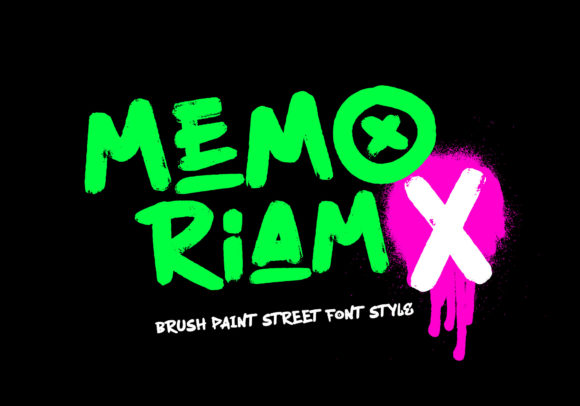
Journey into the world of urban expression with MemoriamX, the graffiti-inspired display font that captures the raw energy and rebellious spirit of street art. This remarkable font, crafted by the talented team at BB Type Studios, is a visual masterpiece that will transform your designs into striking works of art.
Immerse yourself in the vibrant culture of graffiti, where walls become canvases and words dance with rhythm and color. MemoriamX embodies this essence, allowing you to express yourself with an authentic and captivating voice. Its bold strokes and fluid lines evoke the energy of a bustling city, where creativity knows no bounds.
Unleash your imagination and let MemoriamX guide you through a world of possibilities. Create eye-catching t-shirts that speak to the urban soul, sportswear that exudes athleticism and style, and logos that command attention with their bold presence.
With MemoriamX, your designs will resonate with a generation that embraces individuality and pushes boundaries. Whether it's a clothing line that reflects the vibrant spirit of streetwear or an advertising campaign that demands attention, MemoriamX is the perfect companion for your creative journey.
MemoriamX is more than just a font; it's a gateway to a world where creativity thrives and self-expression knows no limits. Its PUA encoding ensures effortless access to a treasure trove of glyphs and swashes, empowering you to add intricate details and flourishes to your designs.
Elevate your designs to new heights with MemoriamX, the font that captures the essence of urban art and ignites the fire of creativity within you. Experience the thrill of creating designs that resonate with a generation that values authenticity and embraces the power of self-expression.